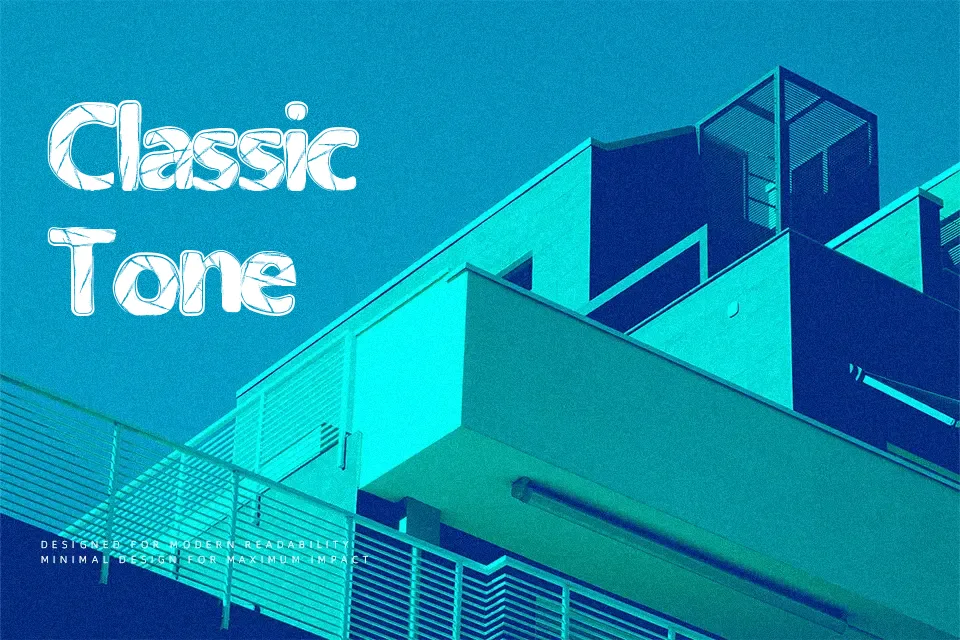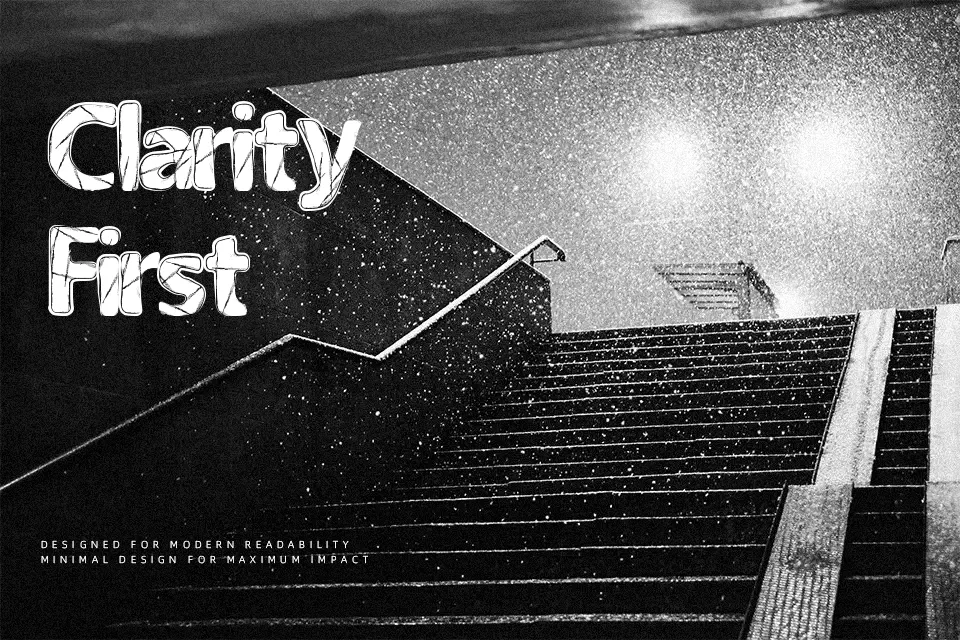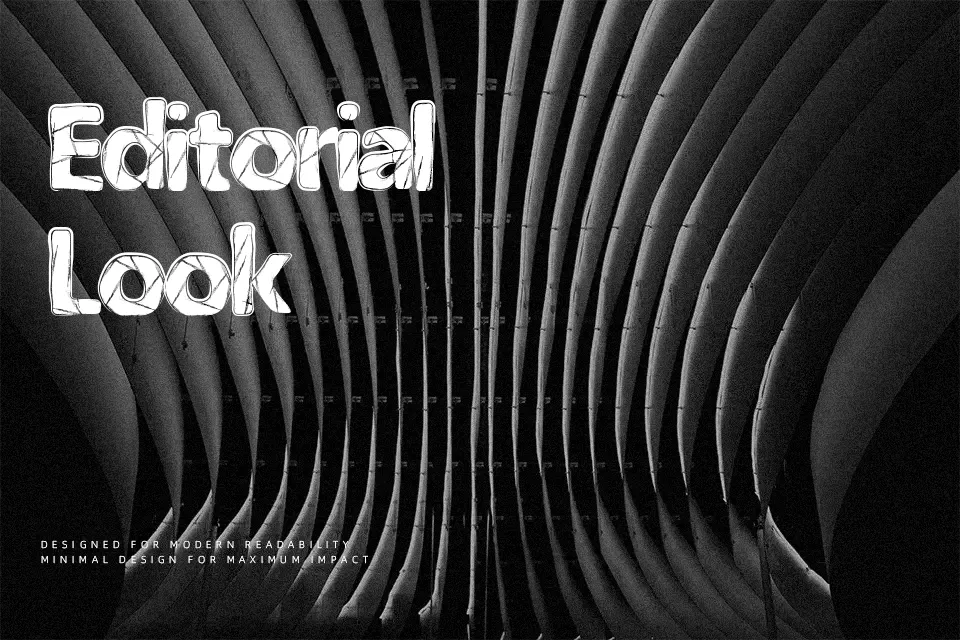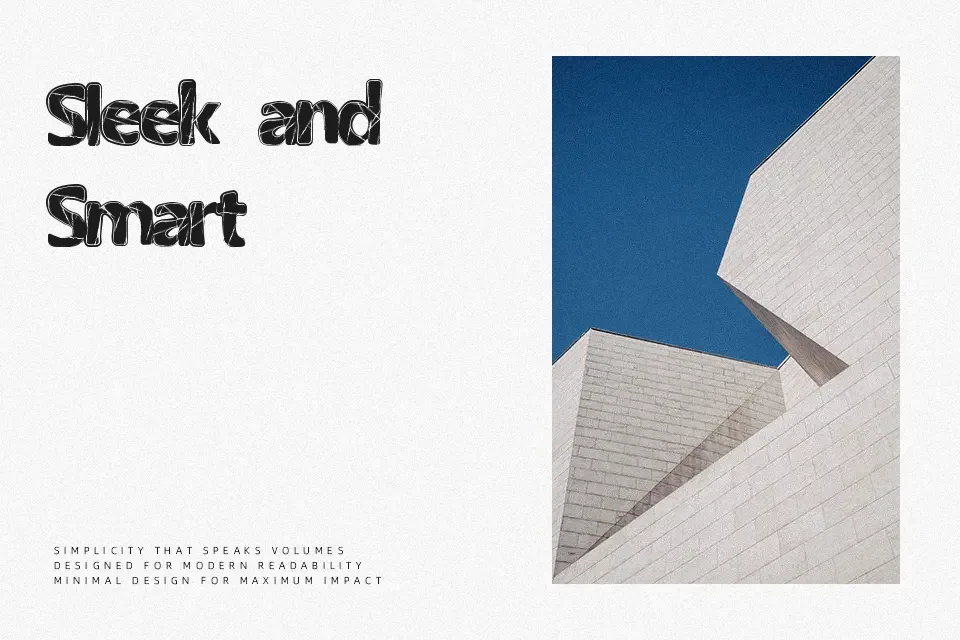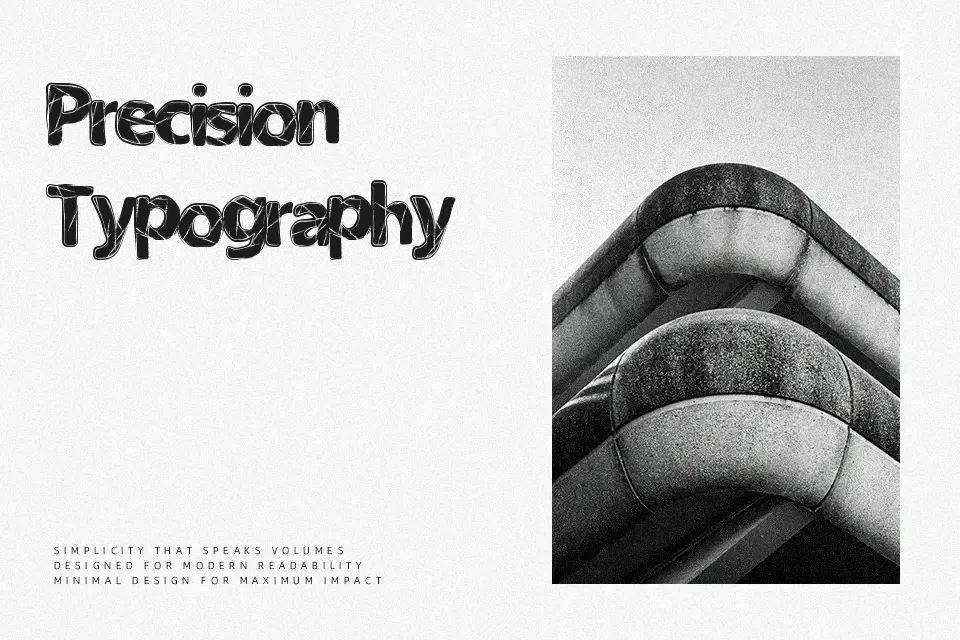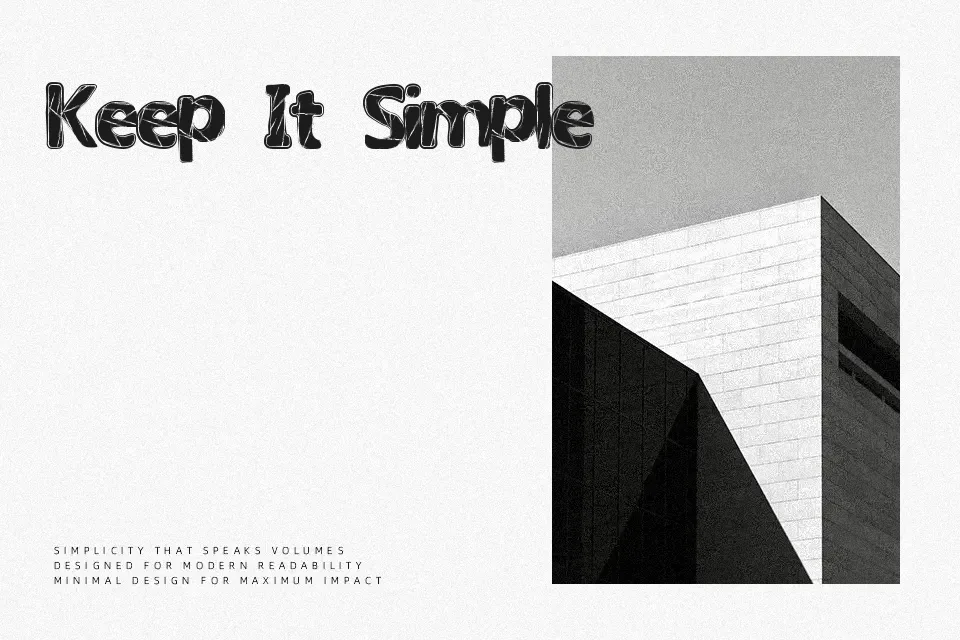
Bolt Light Font
aBolt Light Font by Xerographer Fonts is a bold, eroded sans-serif that immediately establishes a rugged, distressed visual aesthetic. Characterized by its broken strokes, irregular texturing, and gritty letterforms, this display typeface leans heavily into a raw, grunge-inspired style. It thrives when applied to large-scale applications like alternative music album covers, underground event posters, and dramatic film titles where you want to evoke a sense of decay or intense energy. However, due to its heavy texturing and fragmented lines, this font becomes highly illegible at smaller point sizes. You should avoid using it for long paragraphs, digital user interfaces, or polished corporate identities where precise readability remains the top priority.
– Edgy music album covers
– Distressed headline typography
– Gritty gaming and film graphics
– Small paragraph text
– Polished corporate identities
– Digital user interfaces
Perfect for film, gaming, and headline, with a dramatic and decorative style.